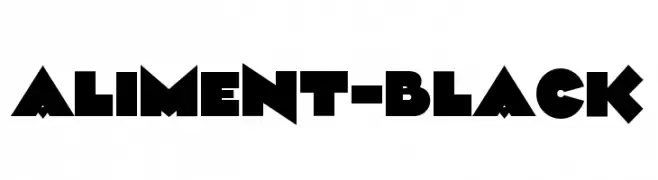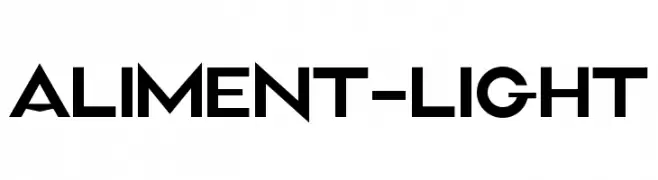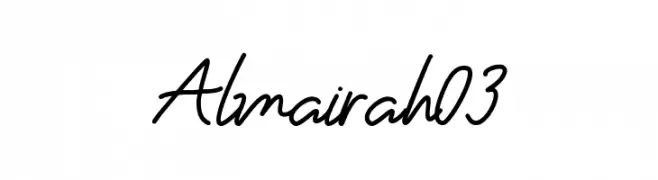
( Pixeluigi - Luis G. Galván - www.facebook.com/memohd25 )
A playful, rounded font with bold, smooth curves and uniform stroke width.
( Rometheme - Yahdi Kumala - creativemarket.com/Rometheme?u=Rometheme )
A dynamic, edgy font with sharp, jagged edges and a hand-drawn style.
( Osama El Khalfaoui - osamaworks.com/ )
A bold, modern sans-serif font with geometric influences and excellent readability.
( Osama El Khalfaoui - osamaworks.com/ )
A sleek, geometric sans-serif font with a modern and minimalist design.
( Wacaksara Co - www.wacaksara.co )
A bold, dynamic script font with fluid, cursive strokes and high contrast.
( Rifan Asri )
A bold, playful, hand-drawn font with a friendly and artistic style.
( Thomas Breure - www.thomasbreure.com )
A modern, geometric font with parallel line construction for a rhythmic and balanced appearance.
( Thomas Breure - www.thomasbreure.com )
A bold, geometric font with a modern and impactful design.
( Pathero Studio - www.patherostudio.com )
A lively, cursive font with a hand-drawn calligraphic style.
( Pathero Studio - www.patherostudio.com )
A bold, expressive handwritten font with dynamic and flowing letterforms.
( Pathero Studio - www.patherostudio.com )
A bold, hand-drawn font with an artistic and playful style.
( Thirtypath - www.thirtypath.com )
A bold, playful font with whimsical curves and decorative serifs.
( Nirmana Visual - Sigit Dwipa - www.instagram.com/nirmanavisual/ )
A dynamic and expressive script font with elongated, flowing letterforms and high contrast.
( Pointlab Studio - creativemarket.com/pointlab )
An elegant and flowing script font with ornate, cursive characters.
( Sronstudio - Yusron Billah )
A fluid and elegant script font with graceful, flowing letterforms.
( Sronstudio - Yusron Billah )
An elegant, cursive font with flowing, interconnected letters and dynamic contrast.
( Sronstudio - Yusron Billah )
An elegant and flowing script font with graceful curves and loops.
( Sronstudio - Yusron Billah )
An elegant, cursive font with fluid, connected strokes and a refined appearance.
( Vlad Viperov )
A playful, bone-like decorative font with bold, irregular edges.
( Riskiansyah Ilyas )
A bold, geometric font with angular edges and a strong, industrial feel.
( Vinterstille TypeFaceLab - Klaus Nielsen - vinterstille.dk/ )
A bold, grunge-style font with a distressed, edgy appearance.
( Muhammad Ridha Agusni )
A bold, decorative font with playful serifs and a modern vintage charm.
( Thirtypath - www.thirtypath.com )
A dynamic and elegant script font with flowing, interconnected letterforms.
( Roland Huse Design - Roland Huse - rolandhuse.com )
A lively, flowing script font with elegant curves and a handwritten feel.
( Måns Grebäck - www.mansgreback.com )
A bold, cursive script font with fluid, dynamic strokes.
( TwoNineFive - Maximillian Limpo )
An artistic Morse code representation using vertical bars.
( Pointlab Studio - creativemarket.com/pointlab )
A graceful, handwritten script font with elegant curves and a calligraphic style.
( Richie Mx - Ricardo Saul Castellanos Pabello - www.facebook.com/rs.desiign )
A bold, angular font with a graffiti-inspired, edgy style.
( Nur Cholis Majid )
A lively, handwritten font with tall, narrow letterforms and playful strokes.
( Qkila - Quentin Aquila - www.creativefabrica.com/designer/qkila/ )
A bold, geometric font with intricate line patterns and a blocky, angular style.
( Rahmat Hidayat )
An elegant script font with flowing, interconnected letters and a calligraphic style.
( Spizzella Fancy )
A decorative font with ornate uppercase and bold, rustic lowercase letters.
( Out of Step Font Company - Dan Steinbok - outofstepfontco.com )
A bold, outlined font with a vintage sports aesthetic.
( Nils Kähler - creativevikings.com )
A modern, geometric font with clean lines and a minimalist design.
( Sholeha Anata )
A bold, geometric font with a modern and edgy style.